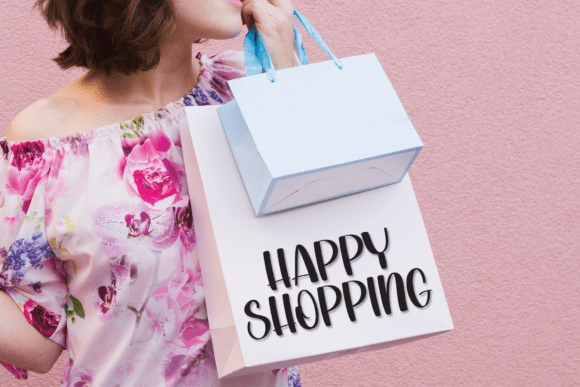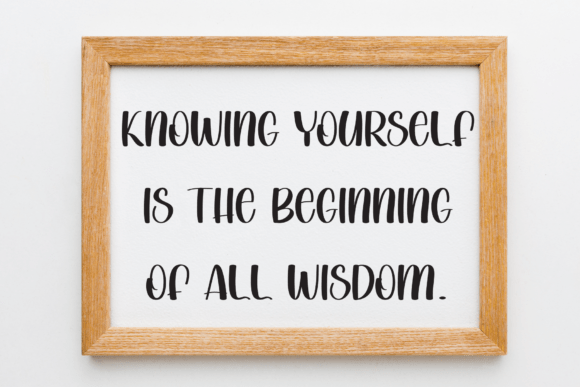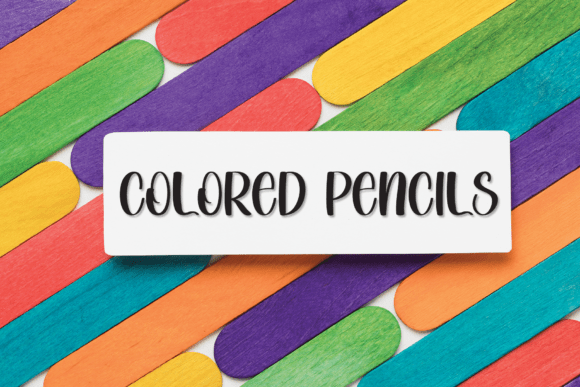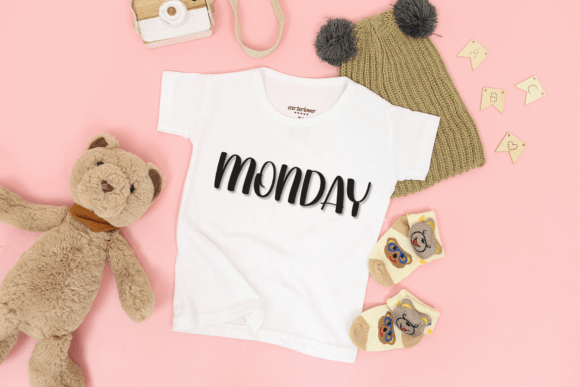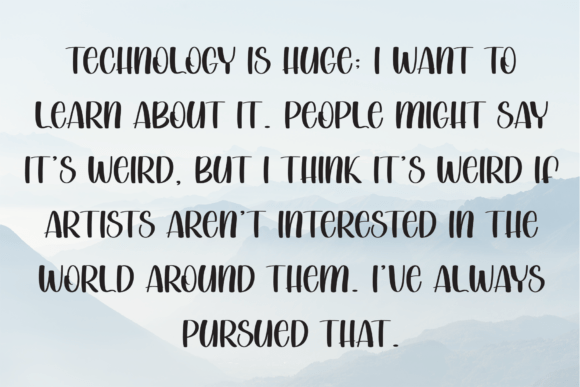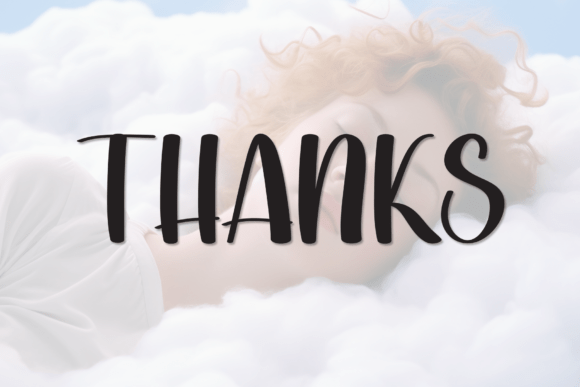
Discover the Whimsy of Dreaming Font
Have you ever stared at a blank page, desperate for inspiration to strike? Maybe you’re crafting a wedding invitation, a heartfelt birthday card, or designing a whimsical children’s book. Whatever your creative pursuit, you know the importance of finding that perfect font to set the tone and transport your audience to a world of wonder.
Enter Dreaming Font, a delightful display typeface that exudes warmth, friendliness, and a dash of playful charm. This handcrafted font is the perfect companion for designers seeking to infuse their projects with a touch of enchantment. With Dreaming Font, you can create designs that feel like a warm hug on a cold day – designs that invite the viewer to step into a world of whimsy and delight.
Whether you’re a seasoned pro or a budding designer, Dreaming Font is a valuable addition to your toolkit. Its unique personality and charm will elevate your creative projects, making them stand out from the crowd and leaving a lasting impression on your audience.
Dreaming Font Key Features
- Font Family: Dreaming Font is a unique and elegant script font, ideal for creative projects and designs.
- Unique Characteristics: Features a flowing, handwritten style with swashes and flourishes, perfect for adding a touch of elegance to invitations, quotes, and other creative projects.
Dreaming Font Review
Overall, I think the Dreaming Font is a solid choice for designers looking to create a whimsical and dreamy atmosphere in their projects. ✨
- Unique and quirky character set: The Dreaming Font offers a wide range of unique and quirky characters that can add a touch of personality to any design. ✨
- High-quality vector graphics: The font’s vector graphics are crisp and clean, making it perfect for use in a variety of design contexts. ✨
- Good for titles and headings: The Dreaming Font’s bold and playful style makes it well-suited for use in titles and headings. ✨
- Not suitable for body text: The font’s size and style can make it difficult to read in large blocks of text, so it’s best to use it sparingly. ⚠️
- Limited language support: The font’s character set is limited, which may be a problem for designers working with languages that require a lot of special characters. ⚠️
Overall, I think the Dreaming Font is a great choice for designers who want to add a touch of whimsy to their projects. With a little creative restraint, it can be a powerful tool for creating eye-catching and memorable designs.
To get the most out of Dreaming Font, use it for creative projects that require a whimsical or dreamy feel.
Some common use cases include:
– Wedding invitations or stationery
– Children’s book illustrations or design
– Dreamy or surreal artwork